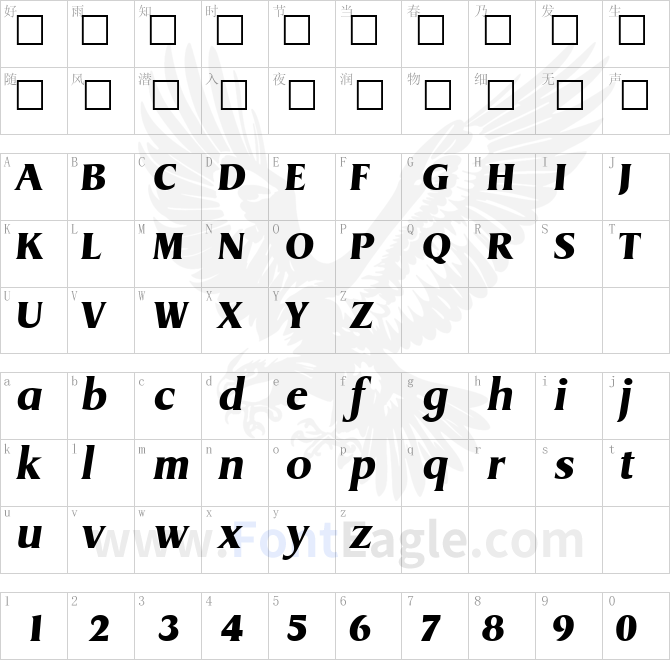
- Font name:Griffon Extrabold
- Font Subfamily ID:WSI:Griffon Extrabold Italic
- Font Full Name:Griffon Extrabold Italic
- Postscript:GriffonExtraboldItalic